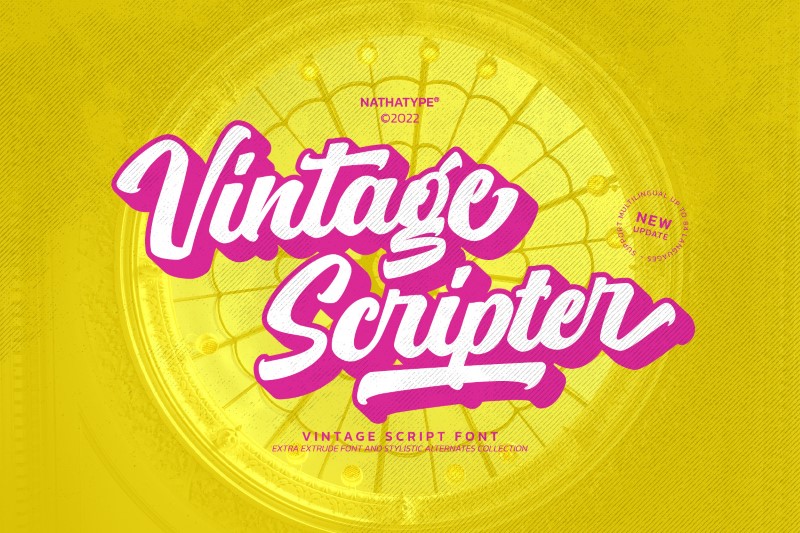
Vintage Scripter is a retro-nuanced script font of which character is the thick, irregular shape and height letter display. Besides, to add a natural handwriting impression is to connect some of the letters with each other. You should apply Vintage Scripter, better in the extrude version, to bigger-sized texts for better legibility.
You can enjoy the available features in this font.
- Stylistic Set
- Swashes
- Multilingual Supports
Vintage Scripter fits for any design projects, such as posters, logos, book covers, album covers, quotes, headings, printed products, merchandise, social media, etc. Find out more ways to use this font by taking a look at the font preview.